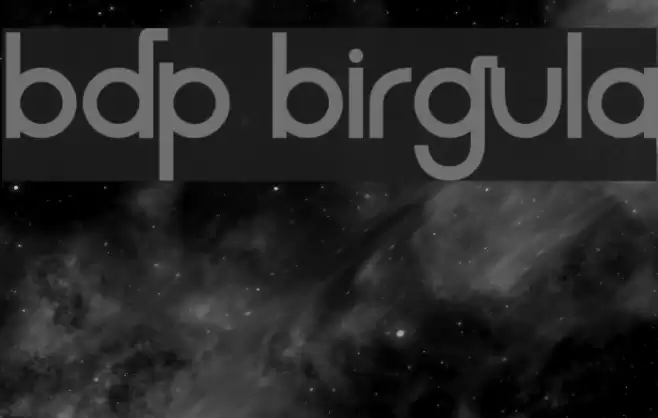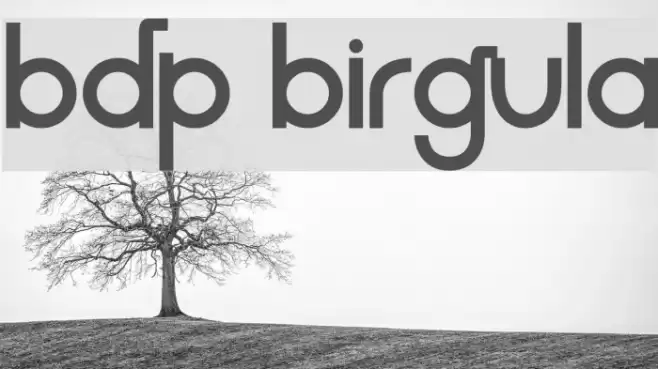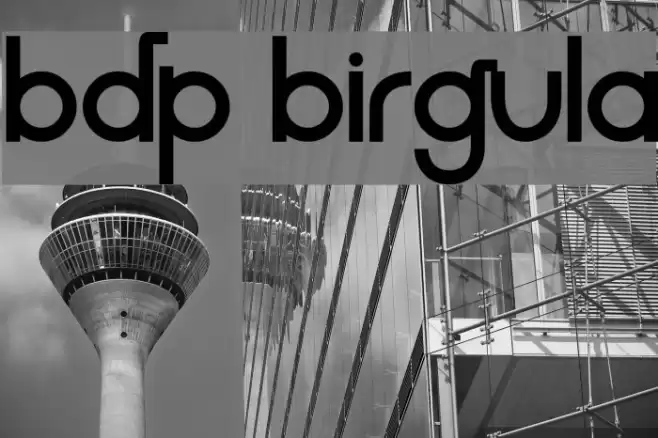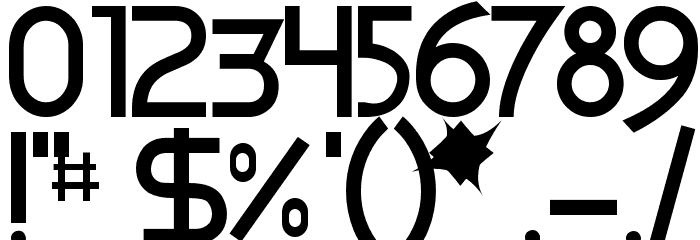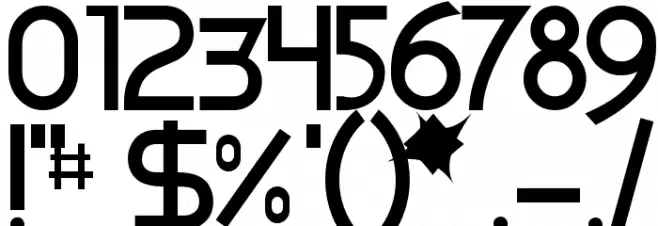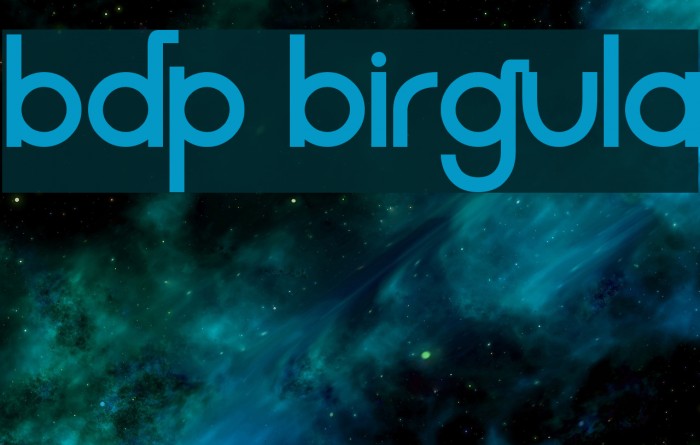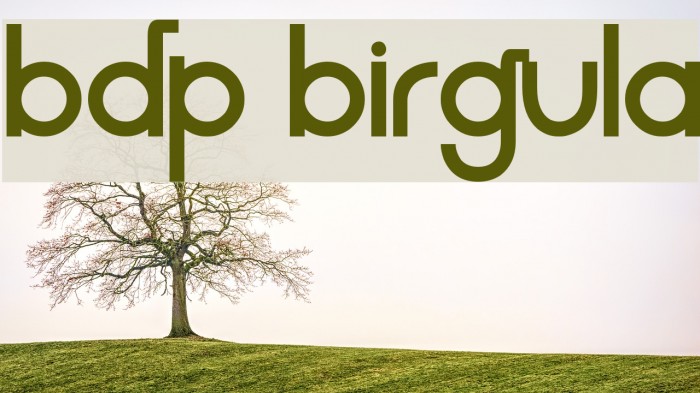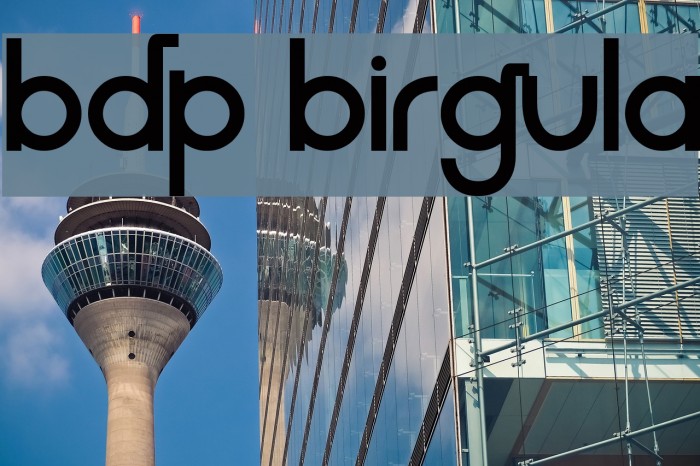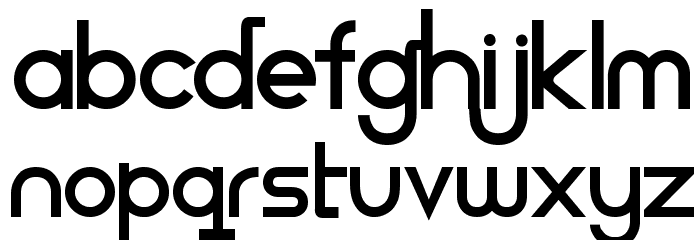
BDP Birgula
This font features a modern, geometric sans-serif design with clean lines and a uniform stroke width. The characters exhibit a rounded, minimalist aesthetic, making them highly legible and versatile. The uppercase and lowercase letters maintain a consistent style, with smooth curves and a balanced structure. Numbers and special characters are designed to complement the overall look, ensuring harmony across all elements. The font's simplicity and clarity make it suitable for various applications, from digital interfaces to print media.
A modern, geometric sans-serif font with clean lines and a minimalist aesthetic.
- Proposed Projects: Ideal for branding, web design, advertising, and editorial layouts due to its clarity and modern appeal.